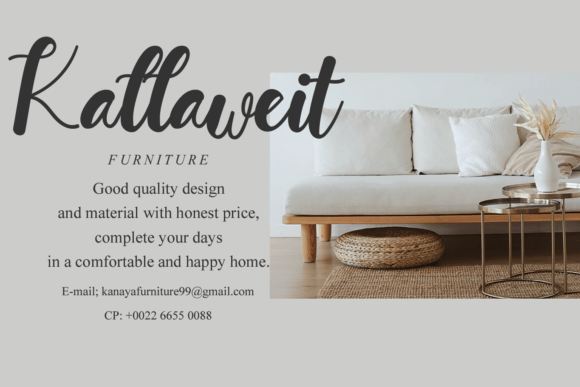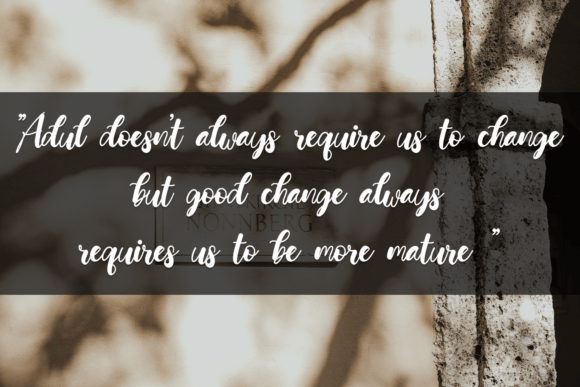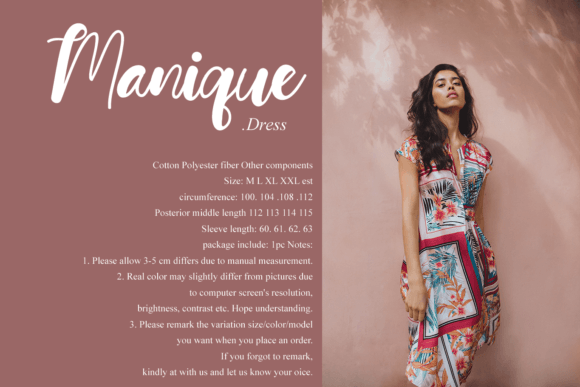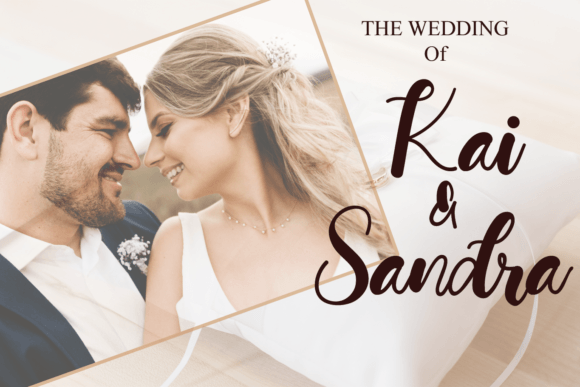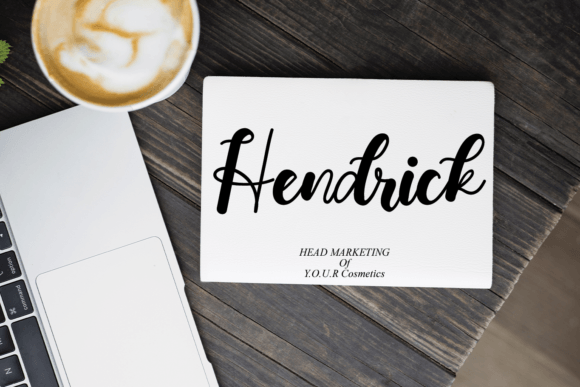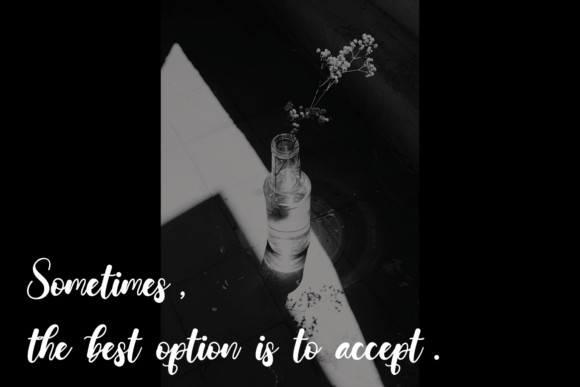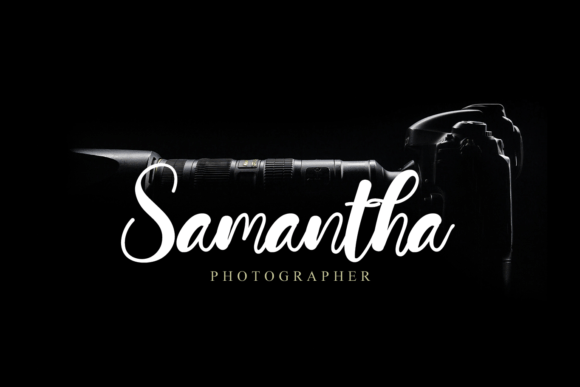
October Font
About October Font
“October” is a delightful and charming calligraphy script font that radiates romance and sweetness. With characters that gracefully dance along the baseline, this font possesses a unique and luxurious quality that is sure to infuse a touch of opulence into any creative design or project you set out to develop.
One of the most distinctive features of “October” is its ability to evoke a sense of romance and sweetness. The characters appear to waltz along the baseline, creating an enchanting and dynamic visual effect. This whimsical quality adds an element of liveliness and sophistication to your designs, ensuring that they capture attention and leave a lasting impression.
The handwritten calligraphy style of “October” captures the essence of creativity and personalization. It has a warm and inviting quality, making it an excellent choice for a wide range of design projects. Whether you’re crafting romantic invitations, designing product packaging, creating social media graphics, or simply looking to add a touch of elegance to your artwork, “October” will introduce a delightful charm into your work.
The name “October” itself evokes a sense of coziness and warmth, and the font lives up to this expectation. The characters flow smoothly, creating a harmonious and visually pleasing composition. This font’s ability to transform your designs into romantic and sweet creations is a testament to its unique charm.
Incorporating “October” into your design projects will undoubtedly infuse them with a sense of whimsy and luxury. Its unique handwritten style and dynamic character arrangement make it an ideal choice for designs that aim to captivate and delight the audience. Embrace the romance and sweetness of “October” in your next project, and watch it sparkle with creativity and elegance.